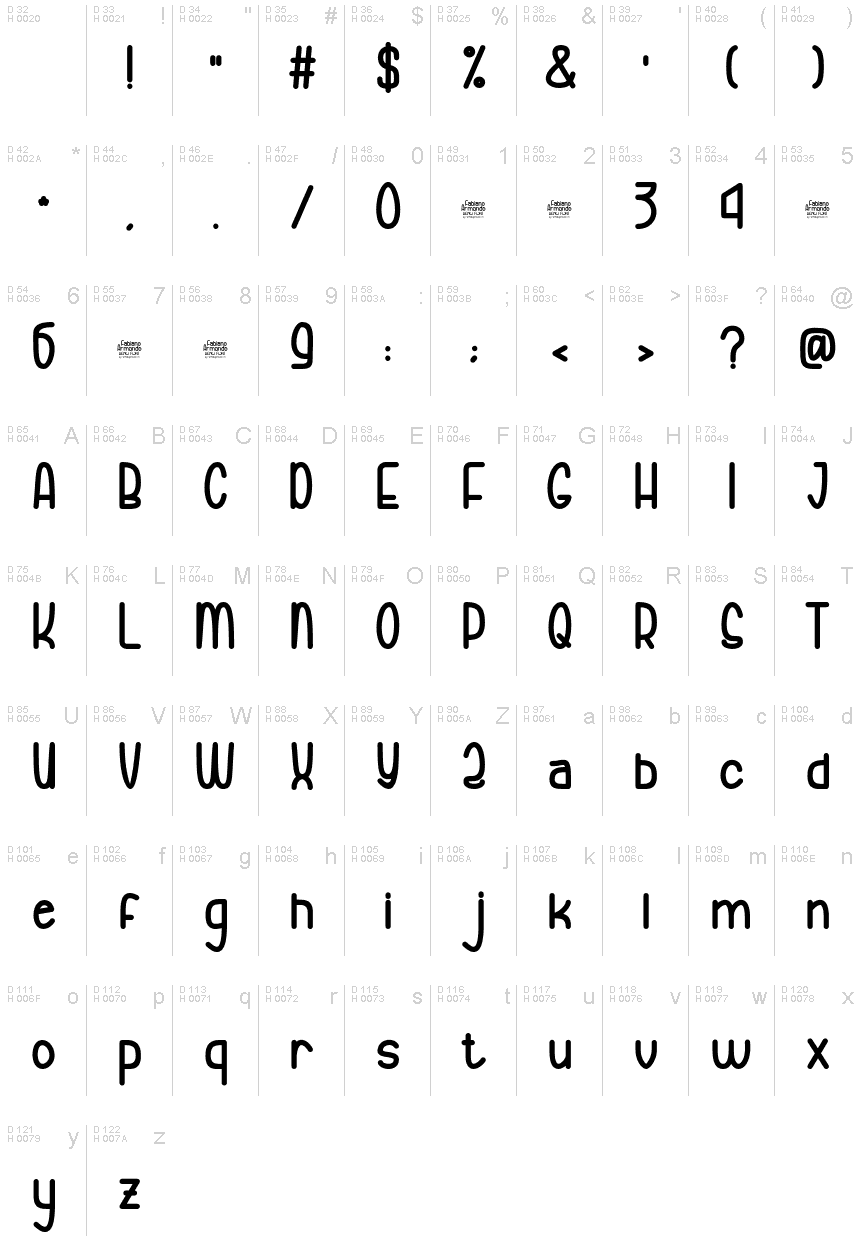
Fabiano Armando Bold
Dive into the charming allure of Fabiano Armando Bold, a font that encapsulates the essence of whimsy and originality. Crafted by bringtypestudio.co, this handwritten gem stands out with its playful curves and engaging personality. Perfect for an array of creative endeavors, Fabiano Armando Bold infuses fun into posters, promotions, videos, and pictures alike.
Its distinctive style resonates with projects that aim to evoke warmth and amusement. With every stroke conveying a sense of delightful spontaneity, this member of the Fabiano Armando family is not just a typeface—it's a statement piece for designers seeking to inject their work with character and joy. Embrace the unique charm of Fabiano Armando Bold and let your designs tell stories that are as captivating as they are visually enchanting.